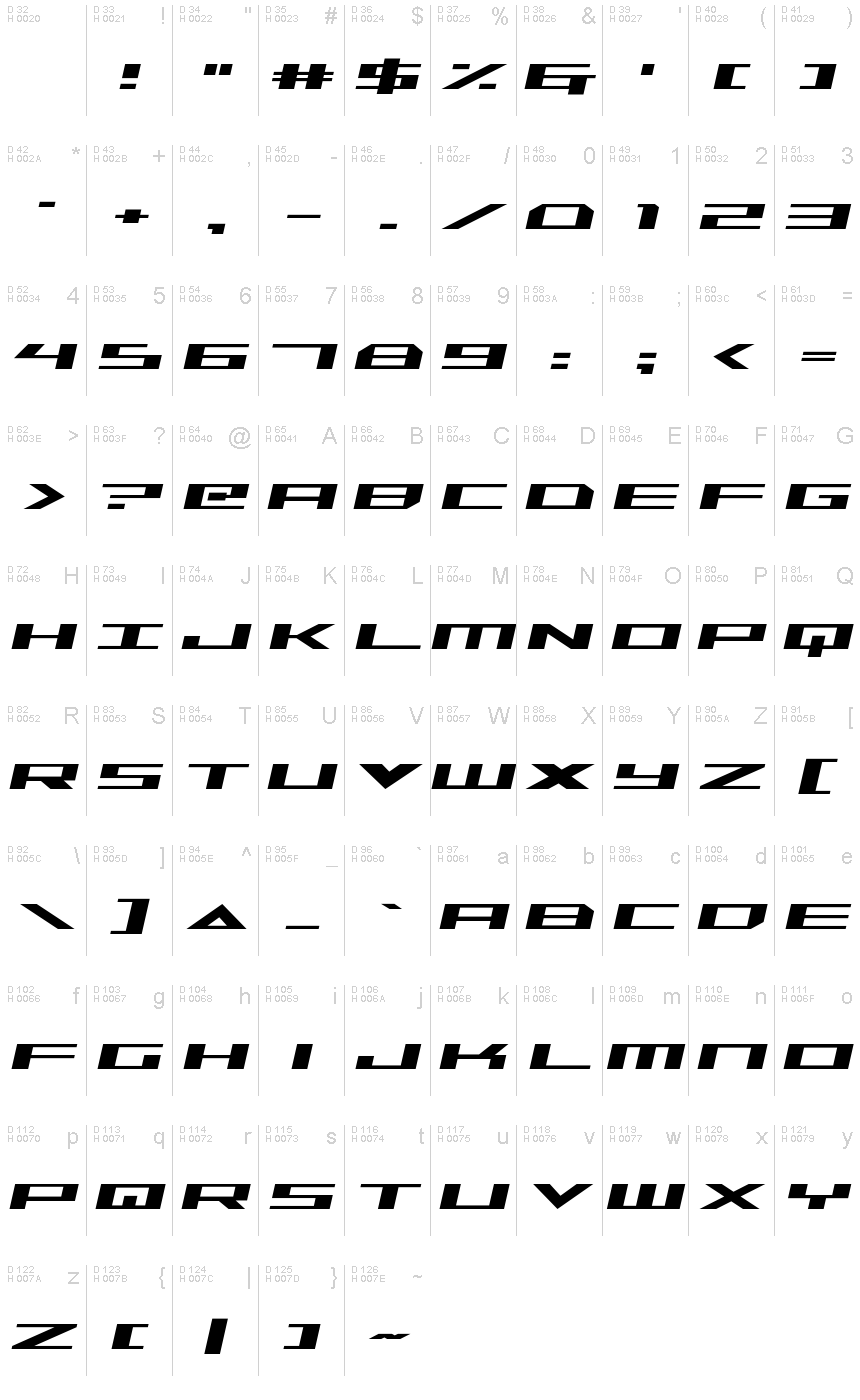
Trireme Semi-Italic font from the Trireme family by Iconian Fonts is a bold, expanded display typeface with a distinctive techno style. Its striking design elements make it ideal for projects requiring a futuristic or dynamic feel. The font's robust and wide characters demand attention, making it suitable for headlines, posters, and digital graphics that seek to captivate and engage audiences.
Trireme Semi-Italic